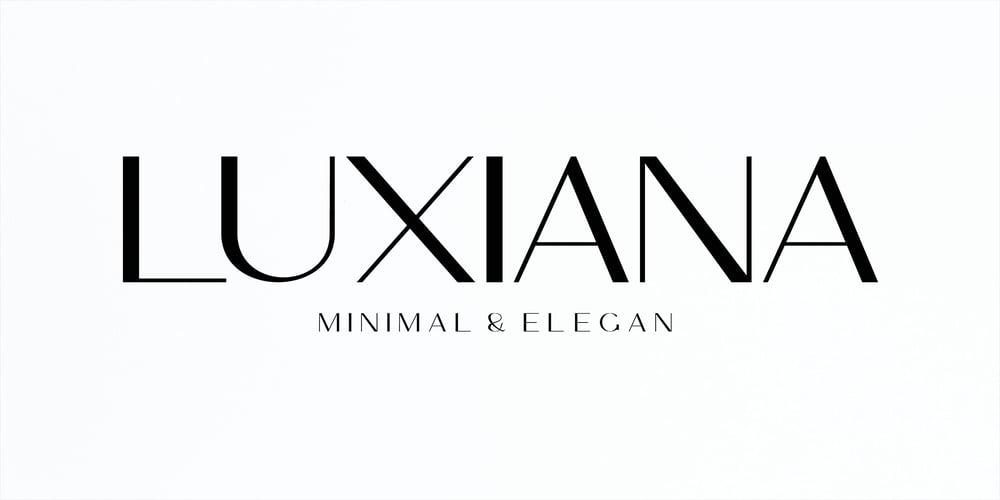
Luxiana Font Family was designed by Canden Meutuah and published by Canden Meutuah. Luxiana contains 1 styles and family package options. Serif is a modern serif font packaged in a modern and classy style, complete with access to your feature to access a large selection of alternative letters and ligatures, the choice of letters you like from various uppercase and lowercase letters for a luxurious impression and elegant appearance.this is equipped with full uppercase, lowercase, numbers and punctuation + Multi-language support